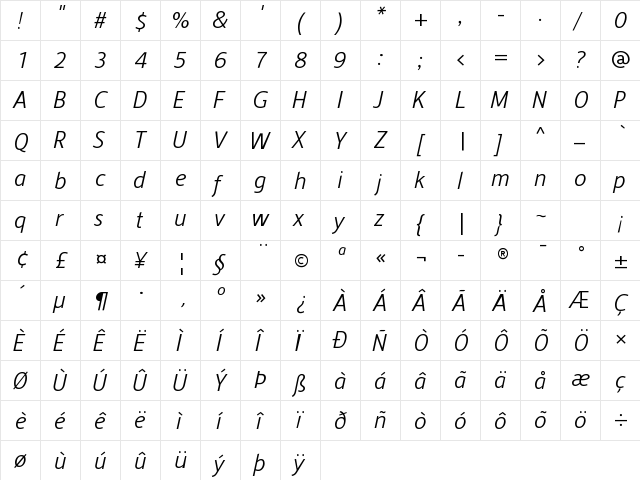
Alber Light Italic
| Foundry | C.Dickinson |
| Designer | C.Dickinson |
Design Context for Alber Typeface
Alber takes a measured approach to typography — its balanced proportions and neutral character make it a reliable workhorse for both digital and print work. The dynamic lean of this cut emphasises speed and emphasis in any layout. The delicate stroke weight brings airiness and refinement to layouts.
Pro Tip: Use Alber for emphasis, pull quotes, and subheadings where its slanted energy can add rhythm to the layout.